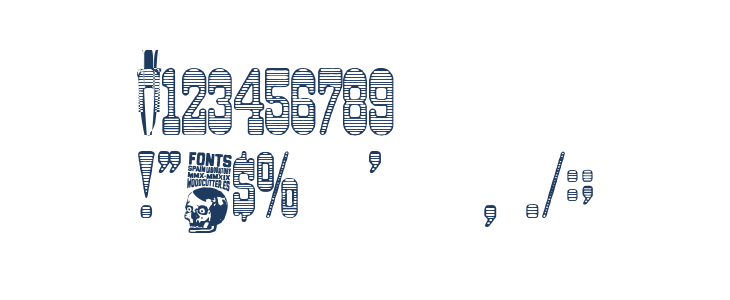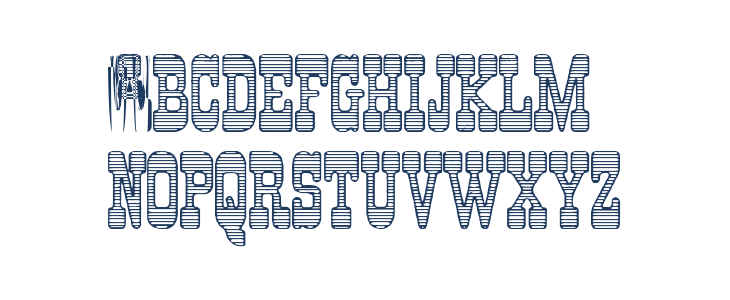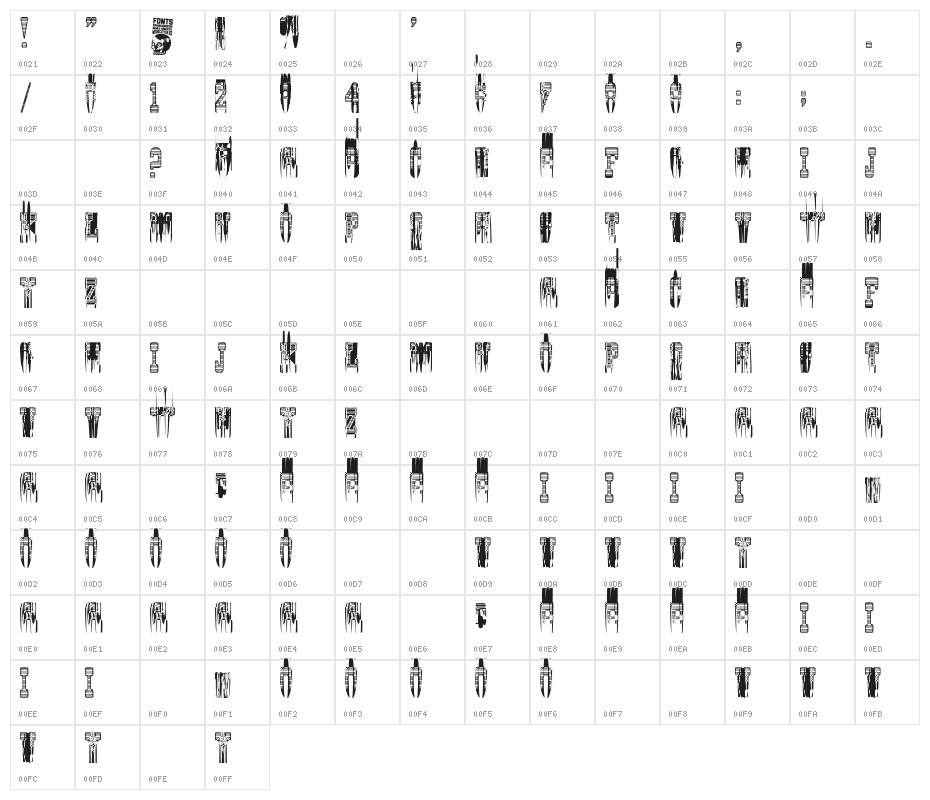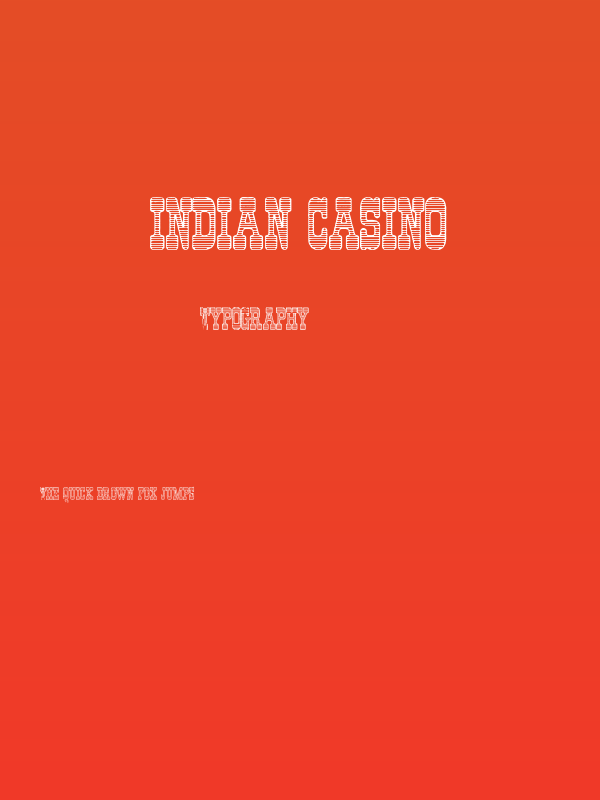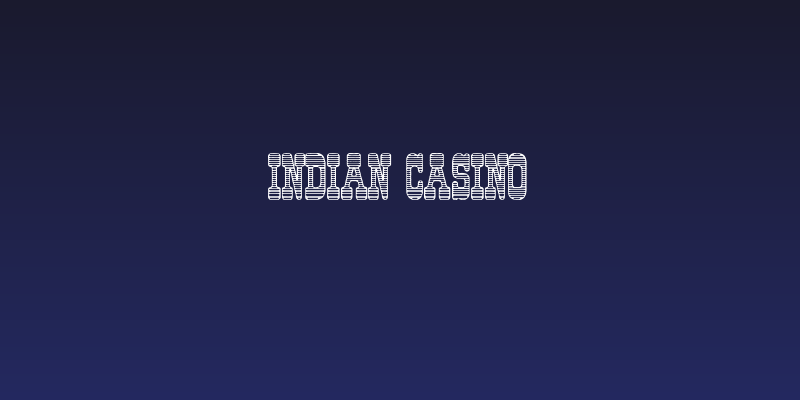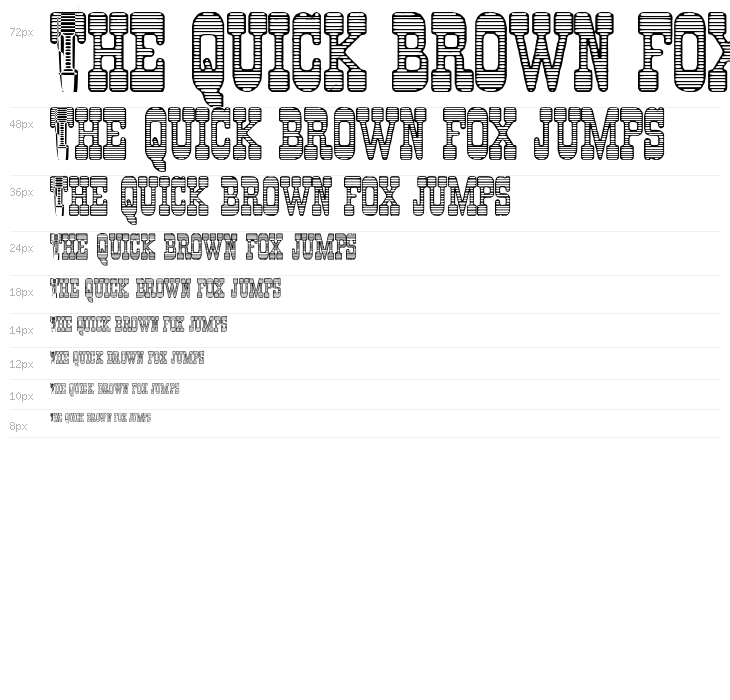
Indian Casino Font
Indian Casino Description
A bold, decorative display font with thick, blocky letterforms filled with horizontal stripes and dramatic, elongated spikes on some characters, creating a striking and energetic visual effect.
| Overall Style | Decorative, Energetic, Playful |
| Use Case | Headlines, Posters, Logos, Event Branding |
| Proposed Projects | Posters, event flyers, music or festival branding, themed signage, attention-grabbing headlines. |